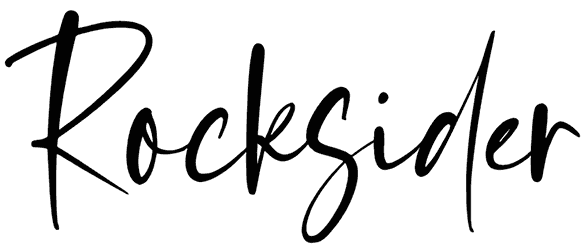
Rocksider Font
Rocksider is an interesting script font that has an attractive character. This signature font looks classy and can be helpful for several cases, such as business cards, postcards, logos, and prints on clothing.
Moreover, the Rocksider font’s letters have smooth edges, creating a pleasant experience for the viewers. If your goal is to impact your audience, press the download button and explore our websites for more exciting fonts.